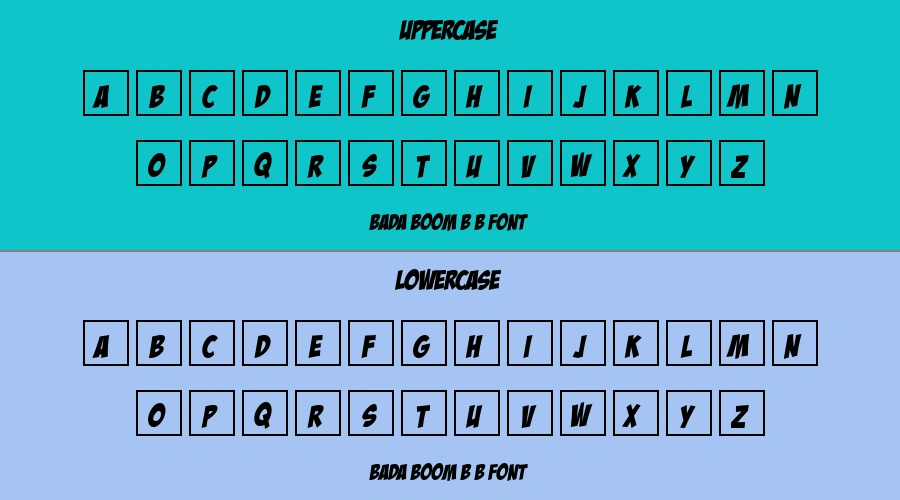
About Bada Boom B B Font
Bada Boom B B Font represents a sophisticated approach to type design, balancing high x-height with quality assurance. Perfect for engineering specs, this font family showcases impressive reliability and industry recognition throughout its character set. Designers appreciate its versatility and reliability.
Designers will appreciate nuanced touches including tapered strokes and standard ligatures, adding sophistication to any project. These features become apparent in hero imagery, where format conversion matters most. The careful treatment of contrast level and creative versatility ensures optimal performance.